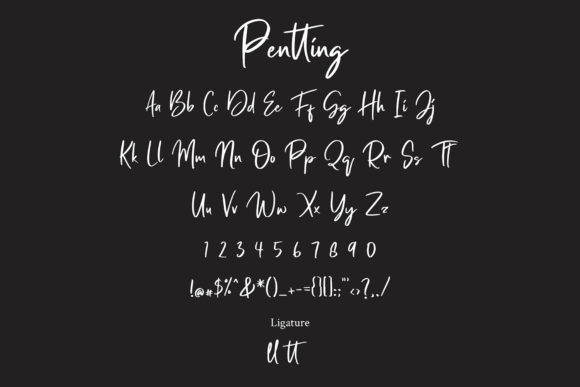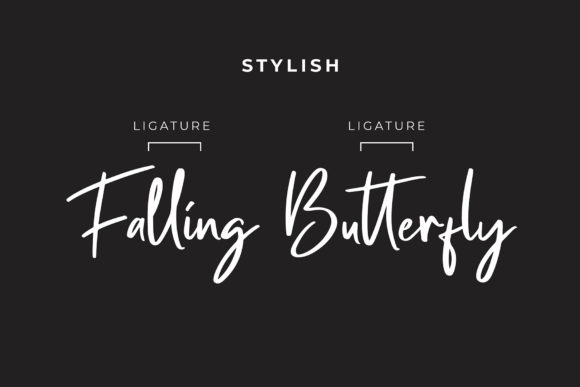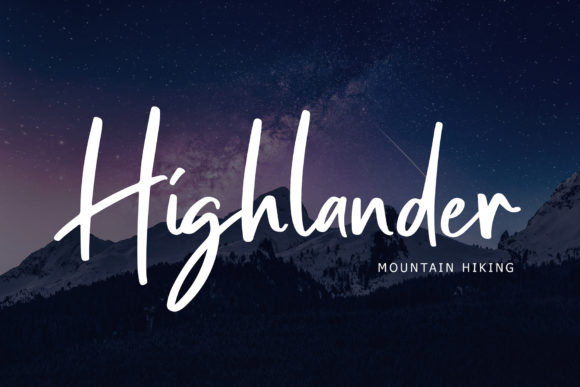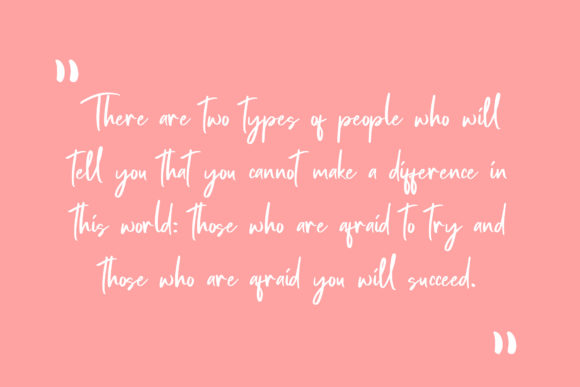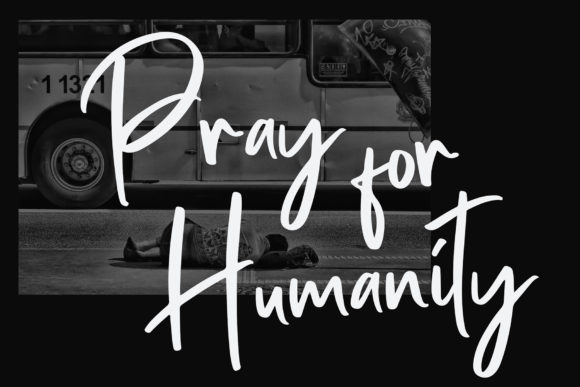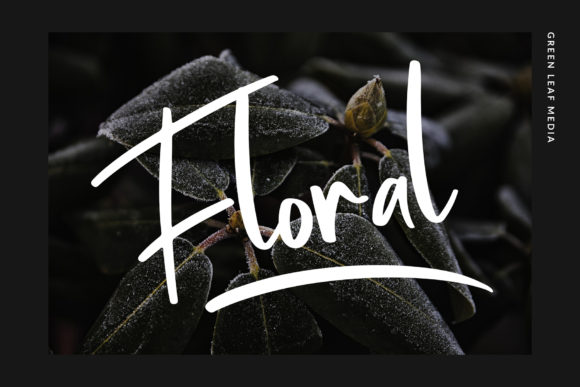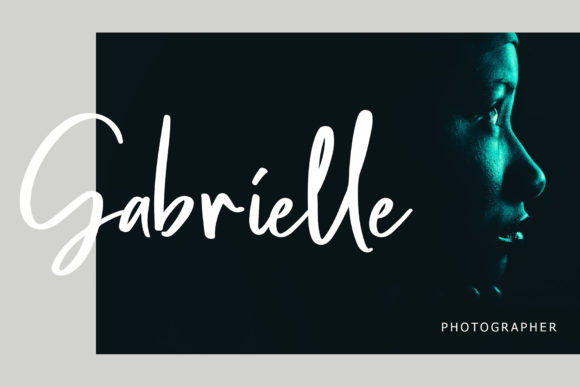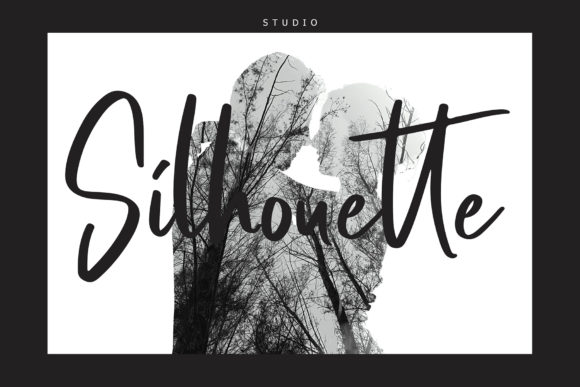
Pentting Font
About Pentting Font
Pentting is a relaxed and unique handwritten font. Whether you’re looking for fonts for Instagram or calligraphy scripts for DIY projects, this font will turn any creative idea into a true piece of art!